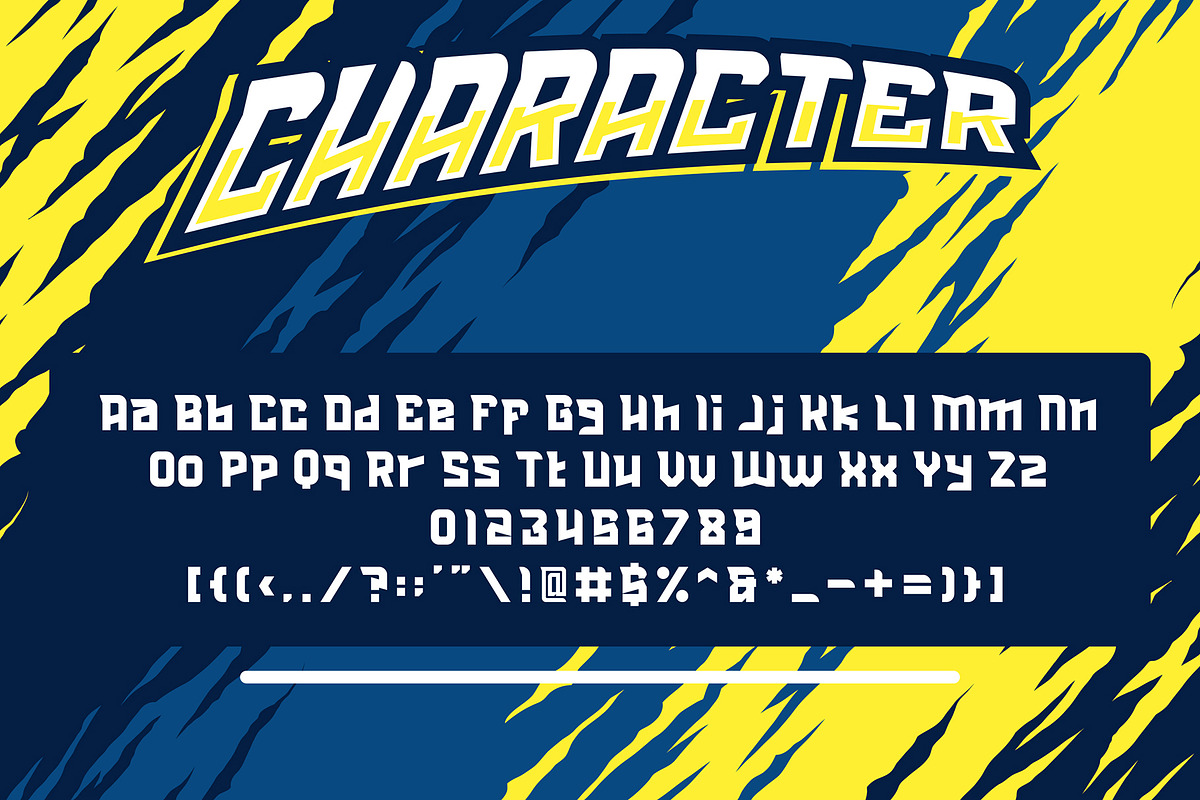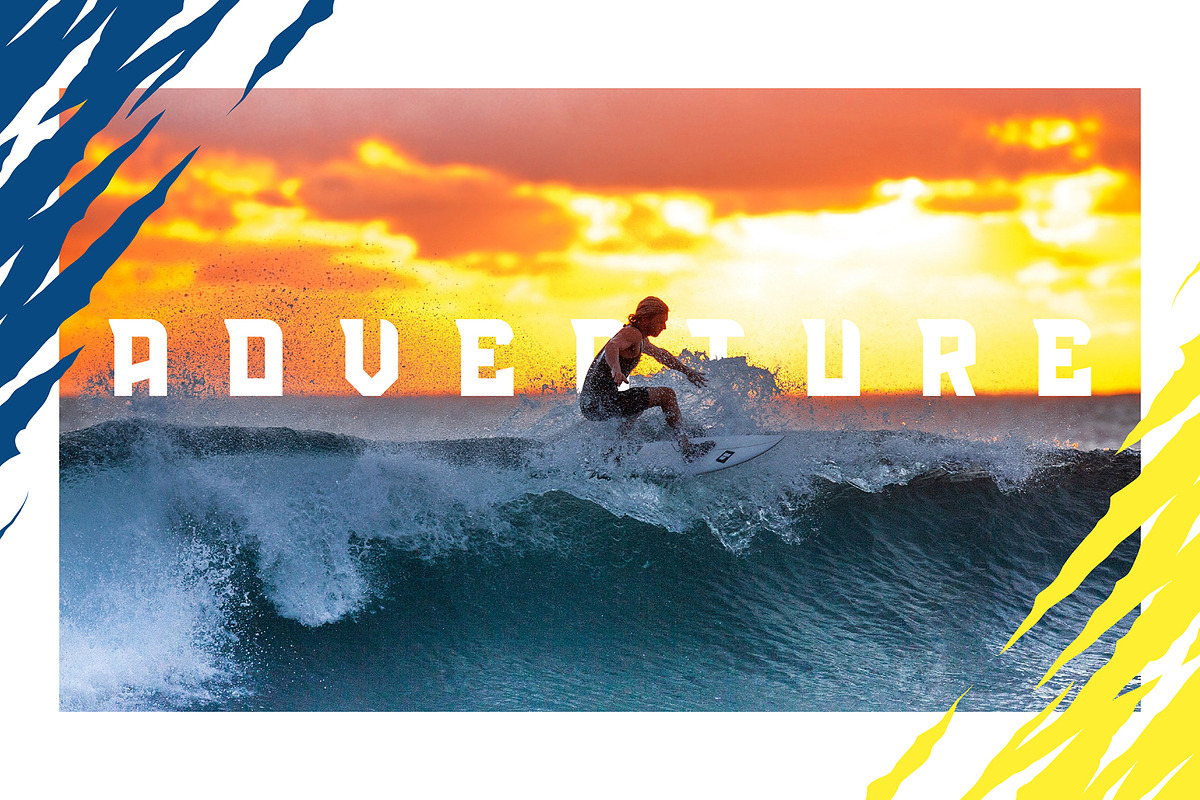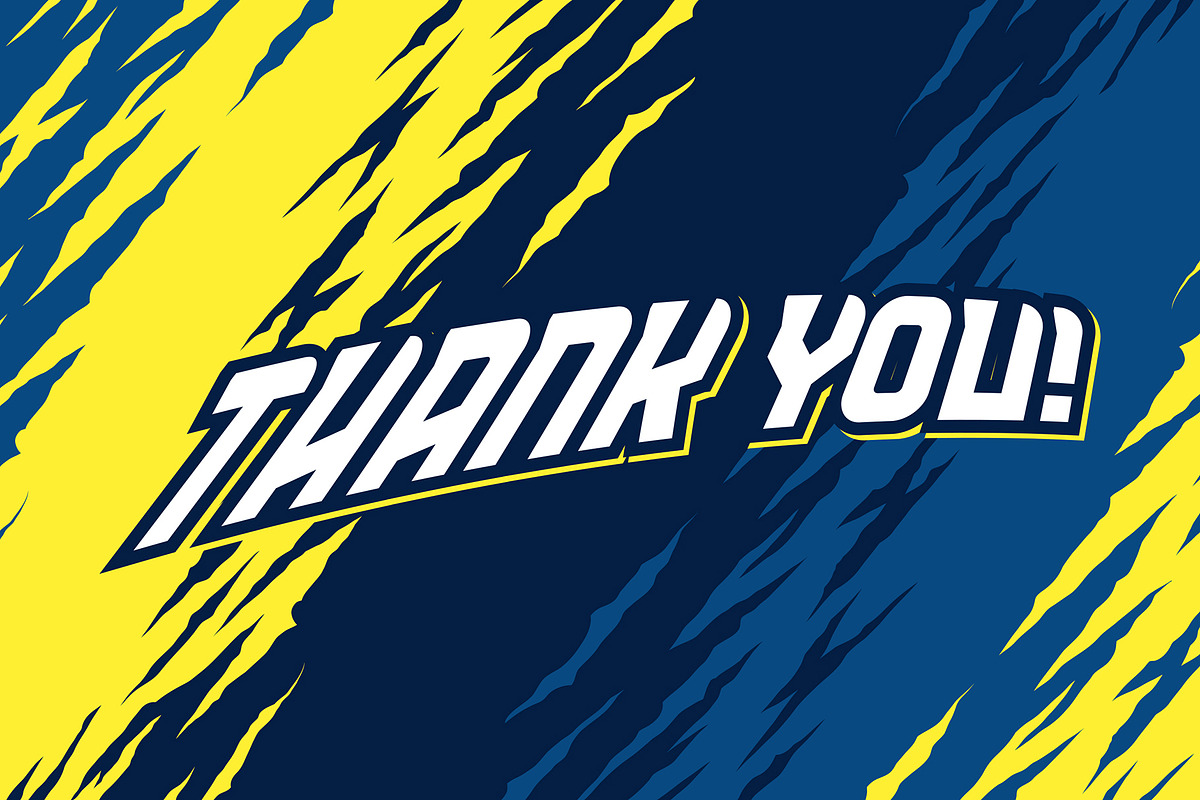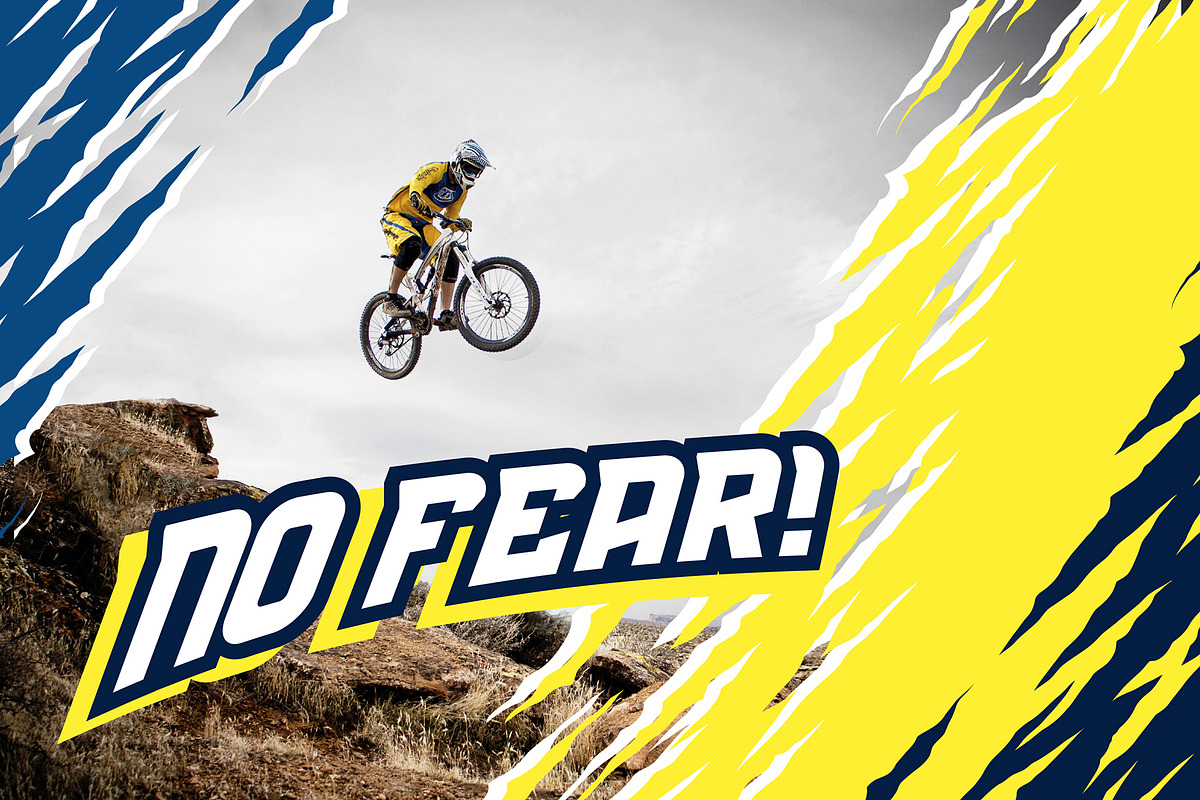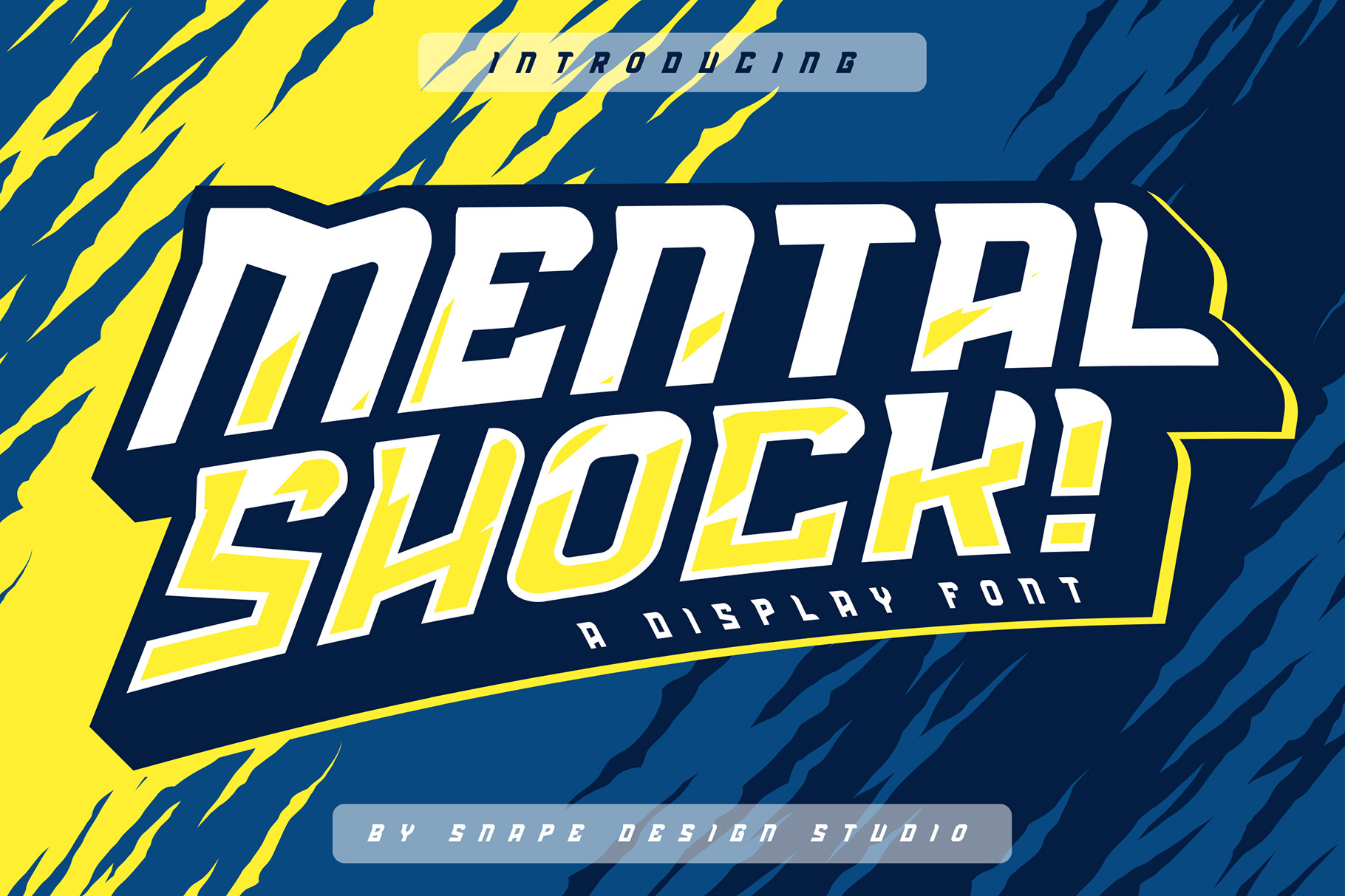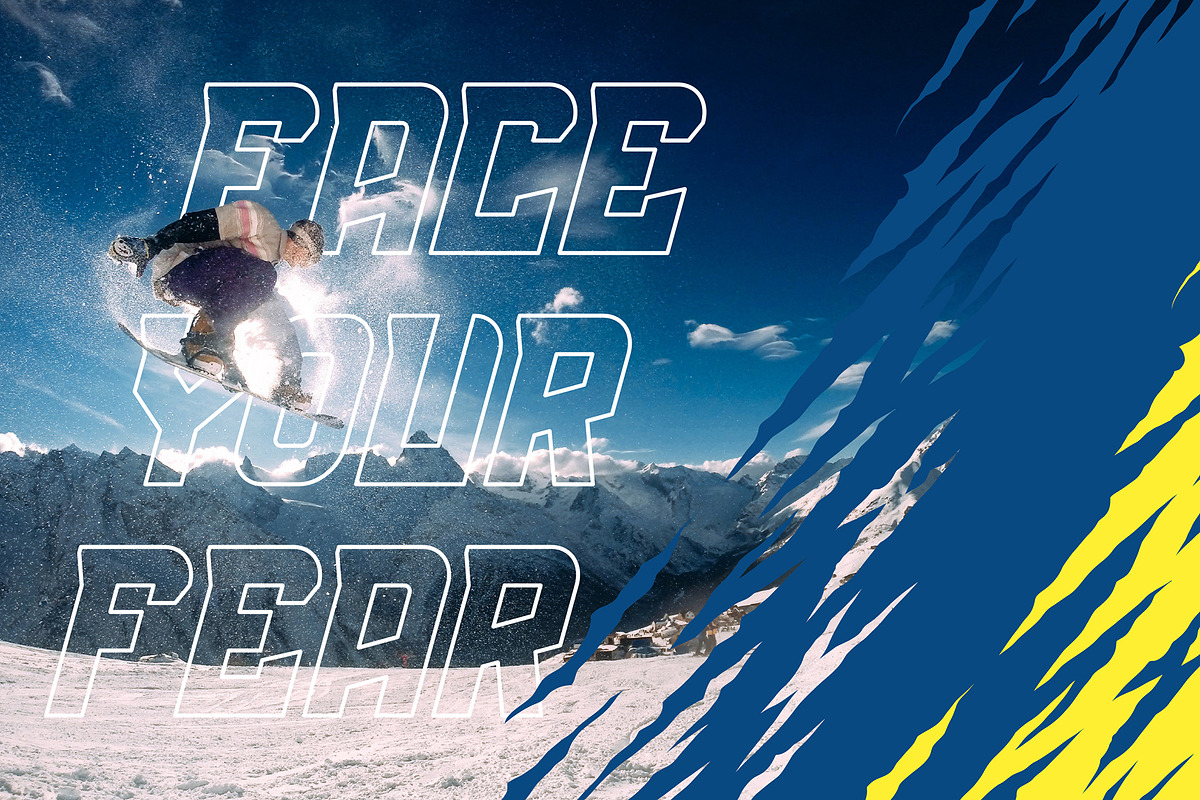
Mental Shock - Display Sport Font
Mental Shock is a bold font, with a strong sporty look. Modern and chunky, this font is incredibly versatile, fitting a wide variety of designs. suitable for your team logo or community logo.
Great for Logo, Sticker, Jersey, Invitation Card, Brochure, etc.